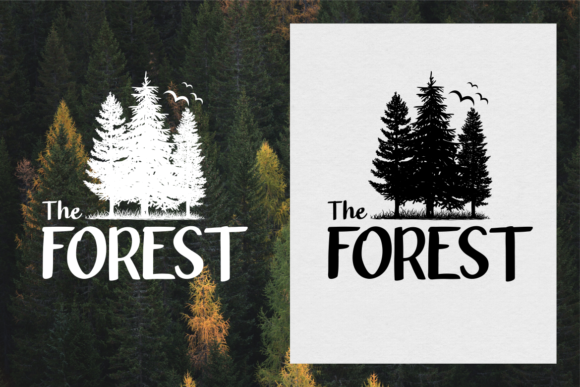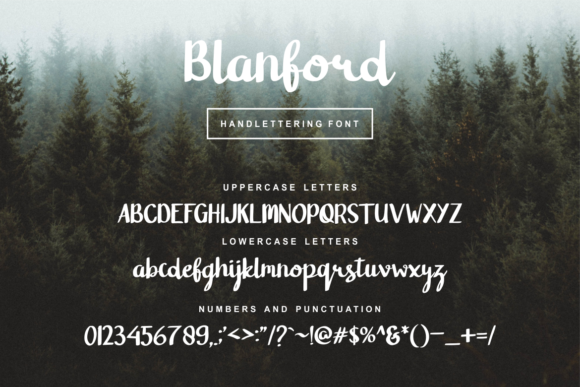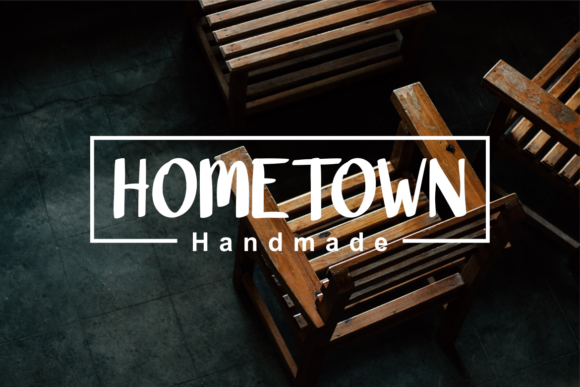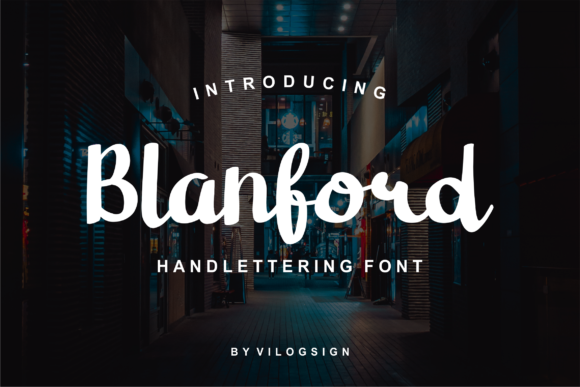
Blanford Font
The Blanford is a handwritten script font. It has a bold and striking look and will give your design an impressive look.
It’s suitable for logos, clothing, posters, quotes, books and magazines, and much more!